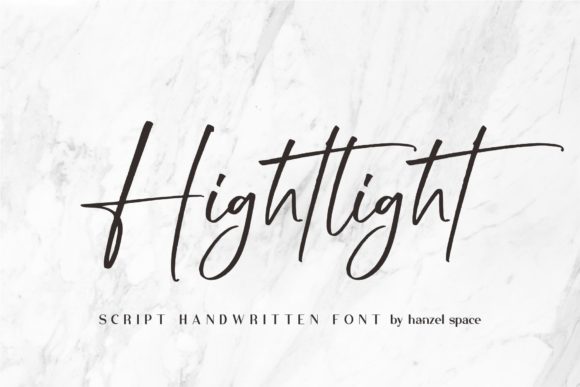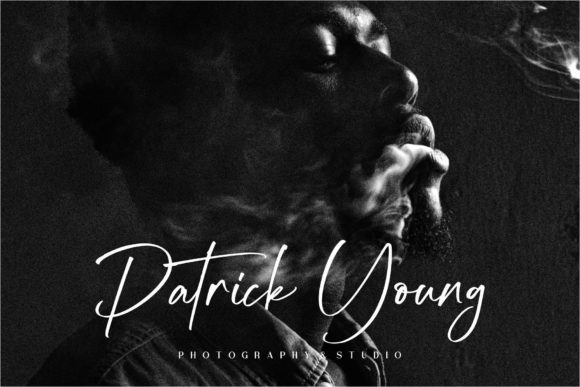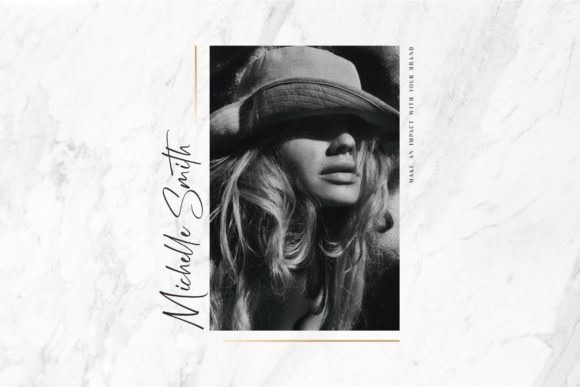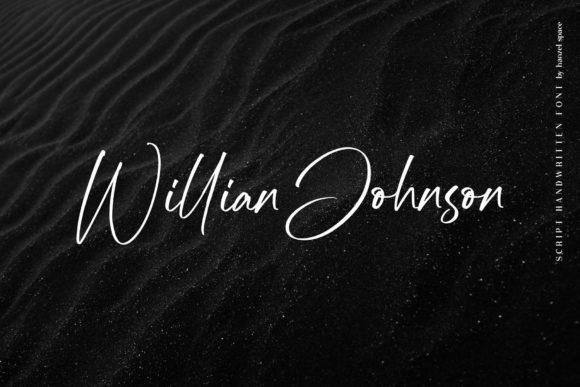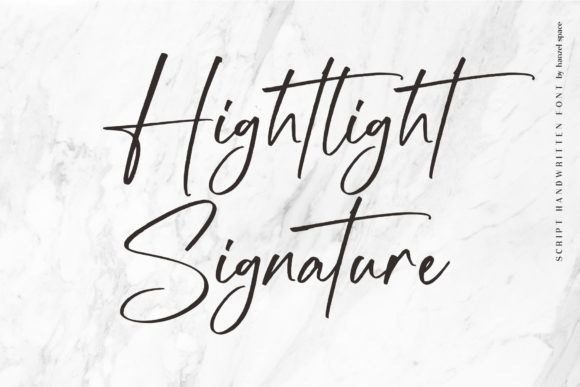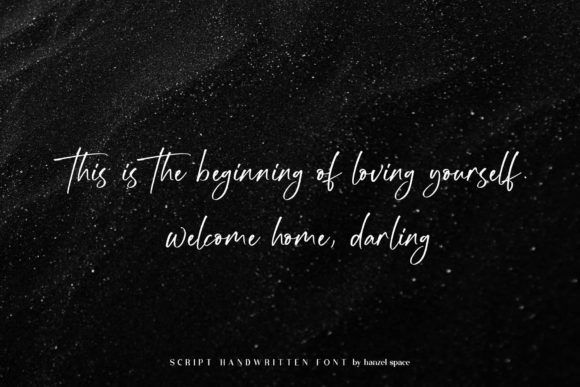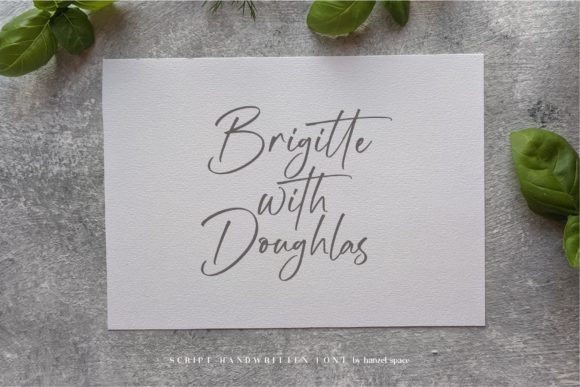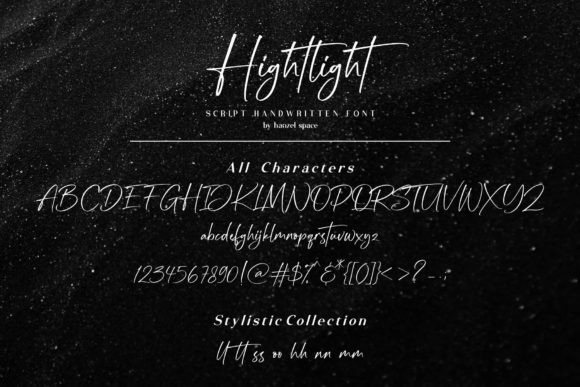
Hightlight Font
About Hightlight Font
Introducing “Highlight,” a relaxed handwritten font that effortlessly blends casualness with chicness. With its stylish and laid-back vibe, this font is perfect for a wide range of design projects, from branding and wedding invitations to cards and beyond.
The charm of “Highlight” lies in its unique combination of a casual handwritten style with a touch of elegance. The fluid strokes and natural flow of the letters create a sense of ease and informality, making it ideal for projects that require a laid-back and approachable aesthetic.
When it comes to branding, “Highlight” can add a personal and friendly touch to your logo, packaging, and promotional materials. Its relaxed nature instantly communicates a sense of authenticity and creates a connection with your audience. Whether you’re running a small business, starting a blog, or launching a creative project, this font can help you establish a memorable and relatable brand identity.
For wedding invitations, “Highlight” adds a touch of casual elegance to the design. Its effortless strokes and relaxed letterforms create an inviting and warm atmosphere, reflecting the joy and love of the occasion. From save-the-date cards to wedding stationery, this font will infuse your wedding suite with a unique and personal feel.
When it comes to cards and other stationery, “Highlight” brings a chic flair that can’t be ignored. Whether you’re designing greeting cards, thank-you notes, or invitations for various occasions, this font adds a touch of style and sophistication. Its relaxed yet refined look will make your designs stand out and leave a lasting impression on the recipients.
“Highlight” also shines in digital designs, making it a versatile choice for social media posts, website headers, and other online graphics. Its laid-back and chic style brings a refreshing and contemporary feel to your digital presence, helping you capture attention and engage your audience.
Furthermore, the versatility of “Highlight” extends to a wide range of creative projects. Whether you’re working on posters, flyers, packaging, or any other design endeavor, this font will effortlessly complement your vision and enhance the overall aesthetic.
In conclusion, “Highlight” is a relaxed handwritten font that combines casualness with chicness. Its effortless and stylish nature makes it an excellent choice for branding, wedding invitations, cards, and more. With its unique blend of informality and elegance, this font adds a personal and welcoming touch to your designs. So, let your creativity shine and use “Highlight” to bring a casual yet chic flair to your next design project.